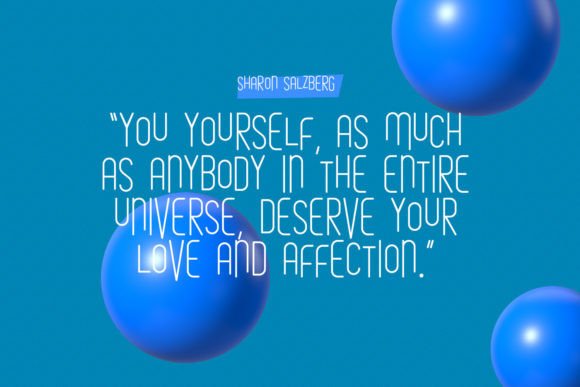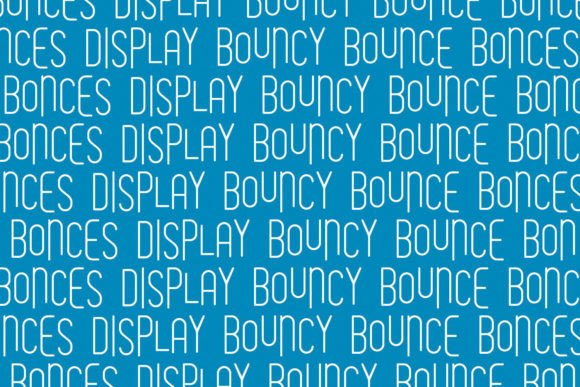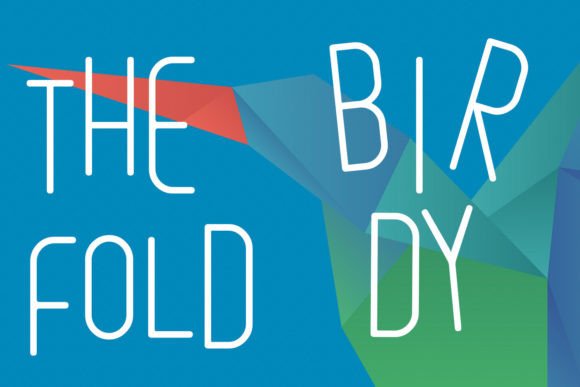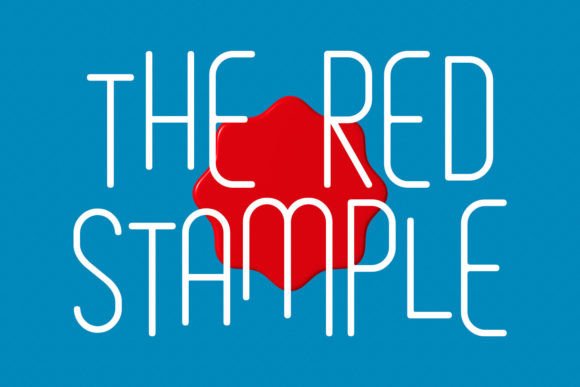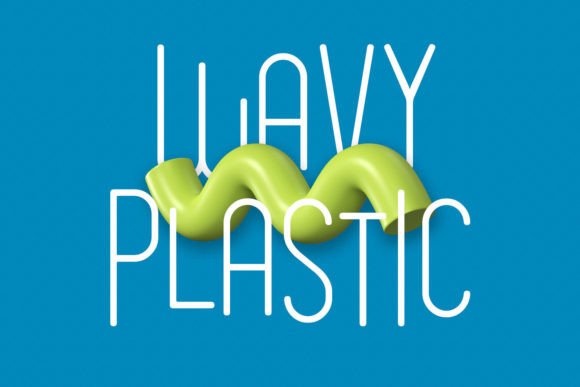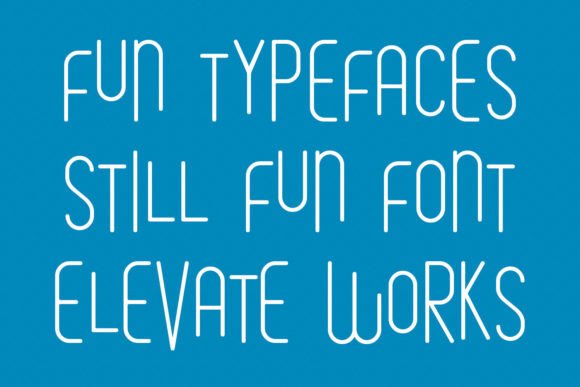
Bonces Bouncy Sans Display Font: Elevate Your Designs with a Modern Twist
In the realm of digital design, fonts play a pivotal role in shaping the visual identity of a project. Among the myriad of typefaces available, Bonces Bouncy Sans Display Font emerges as a distinctive and versatile choice, tailored to meet the demands of contemporary designs and digital media. This modern sans serif font is engineered to infuse a fresh, modern look into headlines, body copy, and branding, making it an indispensable asset for designers and crafters aiming to leave a lasting impression.
The Essence of Bonces Bouncy Sans Display Font
Bonces is not just another font; it’s a statement of modernity and uniqueness. Its bold, eye-catching design effortlessly commands attention, adding a touch of originality to any project. The unique style of Bonces sets it apart from conventional typefaces, making it a must-have for designs that demand a fresh, modern aesthetic. Whether you’re working on digital media, advertising, or editorial content, Bonces brings a contemporary flair that can elevate your project from ordinary to extraordinary.
Versatility at Its Core
One of the standout features of Bonces Bouncy Sans Display Font is its versatility. This font isn’t limited to just one application; it’s incredibly adaptable across various mediums and design needs. Here are a few ways Bonces can be utilized:
- Headlines: The bold nature of Bonces makes it perfect for headlines, where grabbing the reader’s attention is paramount. Its modern look ensures that your titles stand out, compelling readers to engage with your content.
- Body Copy: While often used for headlines, Bonces also reads well in body copy, providing a consistent look and feel throughout your design. Its clarity ensures that your message is conveyed effectively, making it suitable for digital and print materials.
- Branding: For brands looking to establish a modern and unique identity, Bonces offers a distinctive style that can be integral to logo design, marketing materials, and website design. Its unique aesthetic helps in creating a memorable brand image.
Why Choose Bonces Bouncy Sans Display Font?
Choosing Bonces for your design projects comes with several advantages:
- Uniqueness: In a sea of similar fonts, Bonces offers a breath of fresh air with its one-of-a-kind design.
- Modern Appeal: Its contemporary look makes it perfect for projects that require a modern edge.
- Legibility: Despite its boldness, Bonces maintains a high level of legibility, making it functional as well as fashionable.
- Adaptability: It can be used across a wide range of design projects, from digital interfaces to print materials.
Tips for Using Bonces Effectively
To maximize the impact of Bonces Bouncy Sans Display Font in your designs, consider the following tips:
- Mix and Match: Combine Bonces with other fonts to create visual interest. Its bold style pairs well with simpler typefaces for a harmonious design.
- Play with Sizes: Utilize different sizes to create a hierarchy of information, making your design more engaging and easier to navigate.
- Experiment with Colors: While Bonces looks great in black and white, experimenting with colors can add another layer of depth to your design.
Bonces Bouncy Sans Display Font is more than just a typeface; it’s a design statement. Its modern, unique, and bold style makes it an excellent choice for designers and crafters looking to infuse their projects with a fresh, contemporary look. With its versatility, legibility, and distinctive aesthetic, Bonces is poised to become a go-to font for projects that demand a bit of flair and a lot of personality. Whether you’re designing for digital media, crafting a brand identity, or simply looking for a font that stands out, Bonces is an exceptional choice that can elevate your designs to new heights.